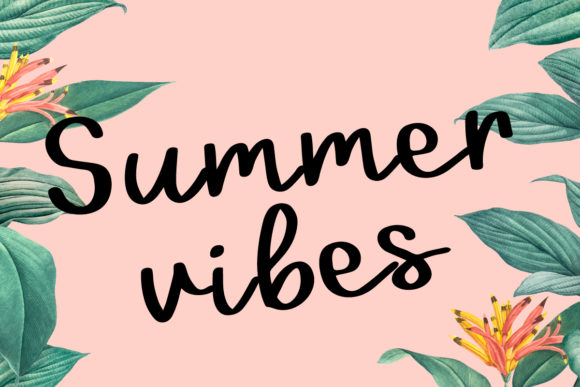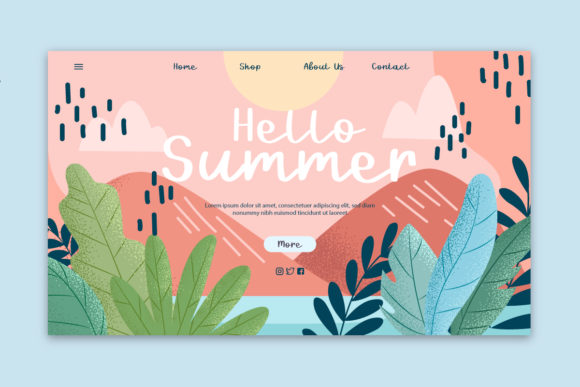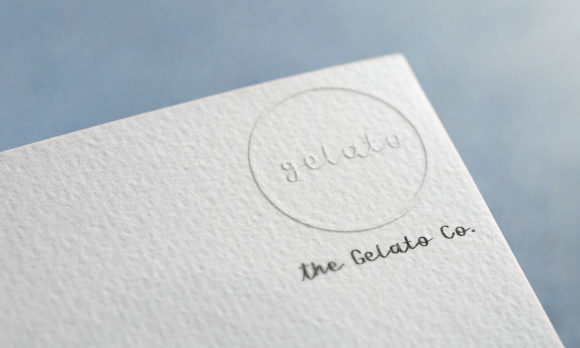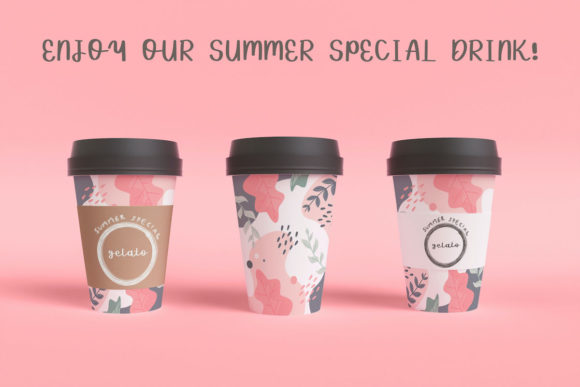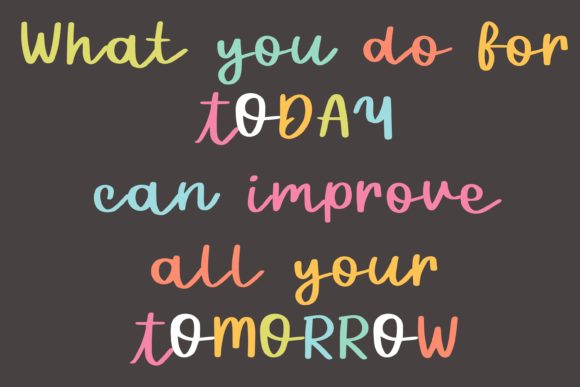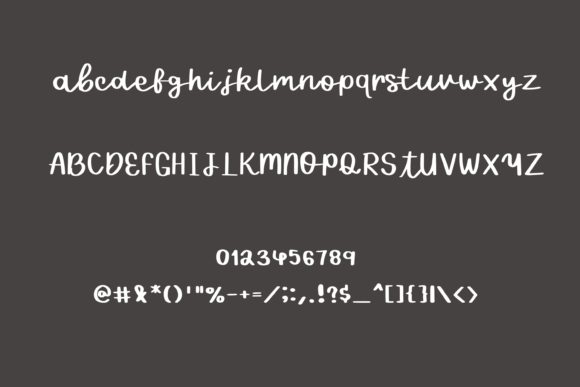
Summer Vibes Font
Summer Vibes is a sweet and relaxed handwritten font that sends out an incredibly fresh feeling. Fall in love with its incredibly distinct and timeless style and use it to create spectacular designs!